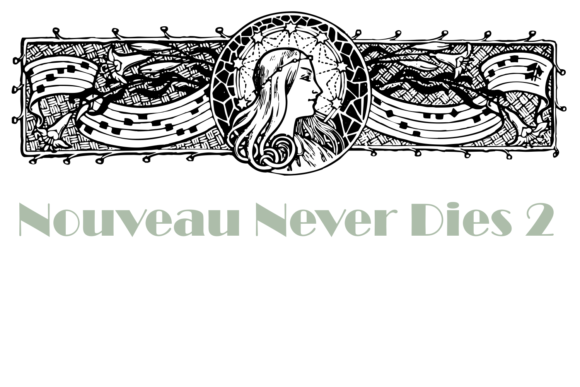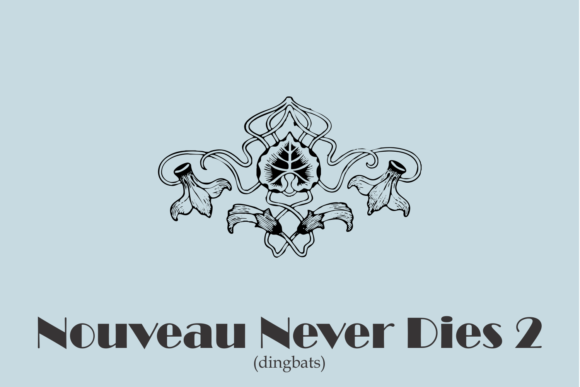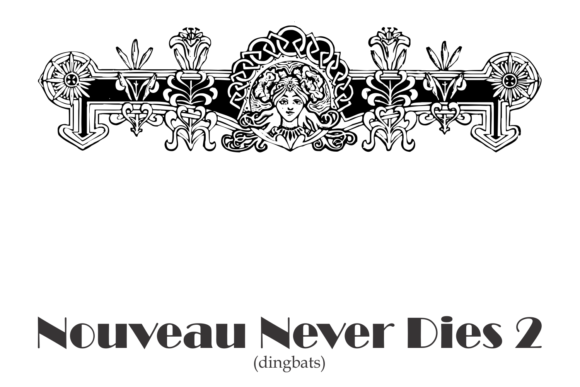
About Nouveau Never Dies Font
Introducing the Nouveau Never Dies dingbat font—a captivating collection of Art Nouveau motifs that brings the elegance and beauty of this iconic artistic style to your designs. With its intricate and ornate symbols, this font allows you to infuse your projects with the timeless charm of Art Nouveau.
The Nouveau Never Dies font is a treasure trove of decorative elements inspired by the Art Nouveau movement. From graceful floral patterns to flowing curves and intricate details, these dingbats offer a wide range of motifs that are synonymous with the Art Nouveau style.
By using the Nouveau Never Dies dingbat font, you can easily incorporate Art Nouveau aesthetics into your designs. Whether you’re working on posters, invitations, book covers, or any other creative project, these motifs add a touch of sophistication and vintage allure.
One of the great advantages of using a dingbat font is the convenience it offers. You can simply type the desired letter or character to instantly insert the corresponding Art Nouveau motif into your design. This saves you time and allows for easy customization and experimentation with different compositions.
While the Nouveau Never Dies dingbat font specifically focuses on Art Nouveau motifs, you mentioned that there are other versions of this family available in your store. This indicates that there may be additional variations or styles to explore within the Nouveau Never Dies font family. These variations can provide even more design options and flexibility to suit different creative needs.
Whether you’re a graphic designer, typographer, or simply an enthusiast of the Art Nouveau style, the Nouveau Never Dies dingbat font is a valuable addition to your design resources. It allows you to incorporate the iconic motifs of Art Nouveau effortlessly, infusing your projects with a touch of elegance and nostalgia.
In summary, the Nouveau Never Dies dingbat font is a captivating collection of Art Nouveau motifs that allows you to effortlessly incorporate the elegance and beauty of this artistic style into your designs. With its convenience and versatility, this font opens up a world of possibilities for creating stunning compositions with a touch of vintage charm. Explore the other versions available in the store to unlock the full potential of the Nouveau Never Dies font family and let your creativity flourish.